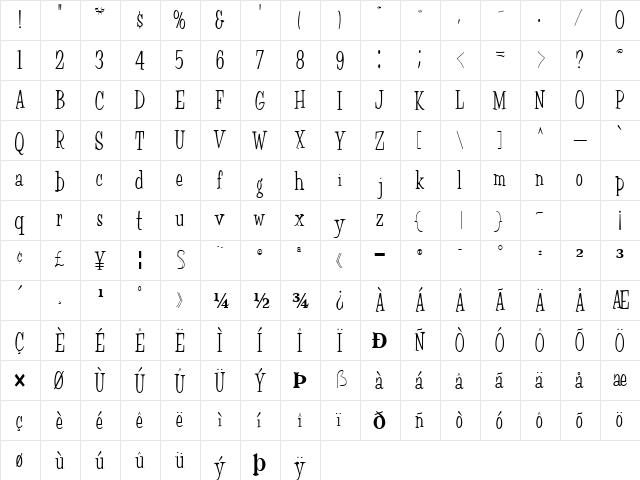
FairChild85 Regular
Design Context for FairChild85 Typeface
FairChild85 trades formality for fun, with bouncy, characterful letterforms that bring warmth and energy to any project.
Font Pairing: Pairs well with a rounded or humanist sans for body copy, maintaining the friendly tone without relying on FairChild85 to carry extended reading.
Pro Tip: Use FairChild85 at larger display sizes where its expressive character can land. Pair with a clean, simple sans for body copy to maintain readability.